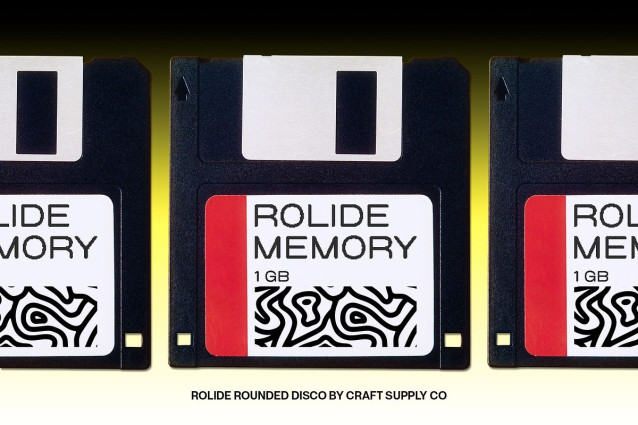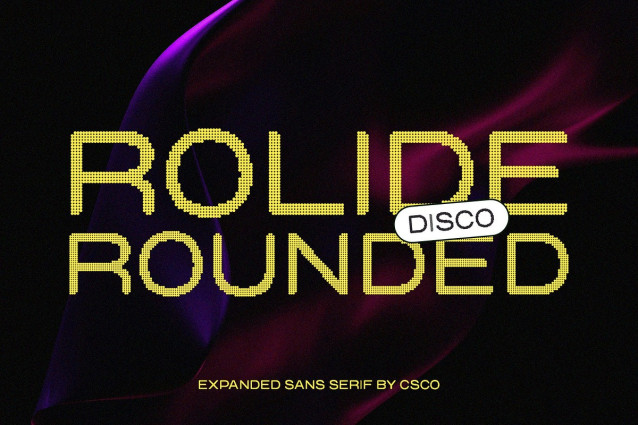
Rolide Rounded Disco Font
Rolide Rounded Disco Font: Sparkle Meets Modern Energy Modern Sans Serif with Rounded Style This is a modern sans serif font that stands out with its smooth rounded shapes and expanded structure. Designed to feel approachable yet bold, its clean geometry carries a contemporary aesthetic that instantly captures attention. This rounded form gives the font a fresh and inviting personality, making it versatile for a wide range of creative applications. Disco Effect for Glamorous Vibration What makes font unique is its dazzling disco effect. Each letter sparkles with a sense of rhythm and movement, giving the impression of visual vibration. This shimmering detail transforms ordinary text into something glamorous and dynamic, perfect for projects that want to radiate energy and celebration. Expanded Style for Bold Presence The expanded letterforms of provide a strong visual presence without losing balance or readability. Its wider proportions make it ideal for impactful display settings, ensuring your words command attention in posters, headlines, and branding designs. Perfect for Fresh and Energetic Projects From branding and modern advertising to eye-catching posters and contemporary creative layouts, brings vibrancy and glamour. It combines the professionalism of a sans serif with the fun, energetic sparkle of disco, making it the perfect choice for designers who want to balance clarity with bold creativity. Download Type Speciment: — What you get : – Rolide Rounded Disco Regular – Rolide Rounded Disco Italic Features : – Uppercase and lowercase characters – Numerals and Punctuation (OpenType Standard) – Accents (Supports Multilingual Characters) – PUA Encoding — You can use this typeface without needing any specialized software. — If you have any inquiries or need assistance, please feel free to contact us. We appreciate your support in enhancing your creative projects! Best regards, Craft Supply Co.